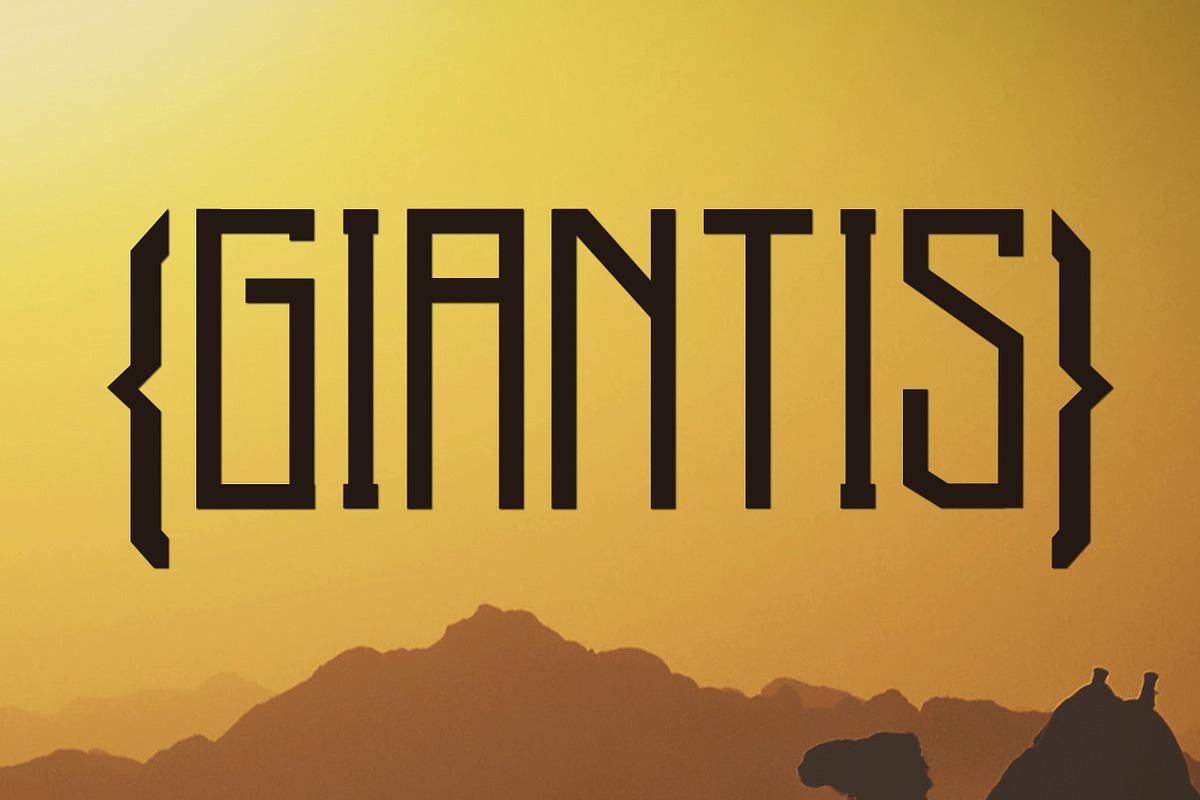
Giantis Font Free Download is a bold, powerful display typeface designed to make a massive impact. With its towering letterforms, strong lines, and modern structure, Giantis is perfect for headlines, sports branding, poster design, video game titles, and high-energy promotional materials. It’s made to grab attention and leave a lasting impression.
Using the Giantis Font Free Download adds strength, confidence, and presence to your designs. Whether you're working on a dynamic logo, action-packed campaign, or eye-catching web banner, this font delivers scale and attitude in every character.